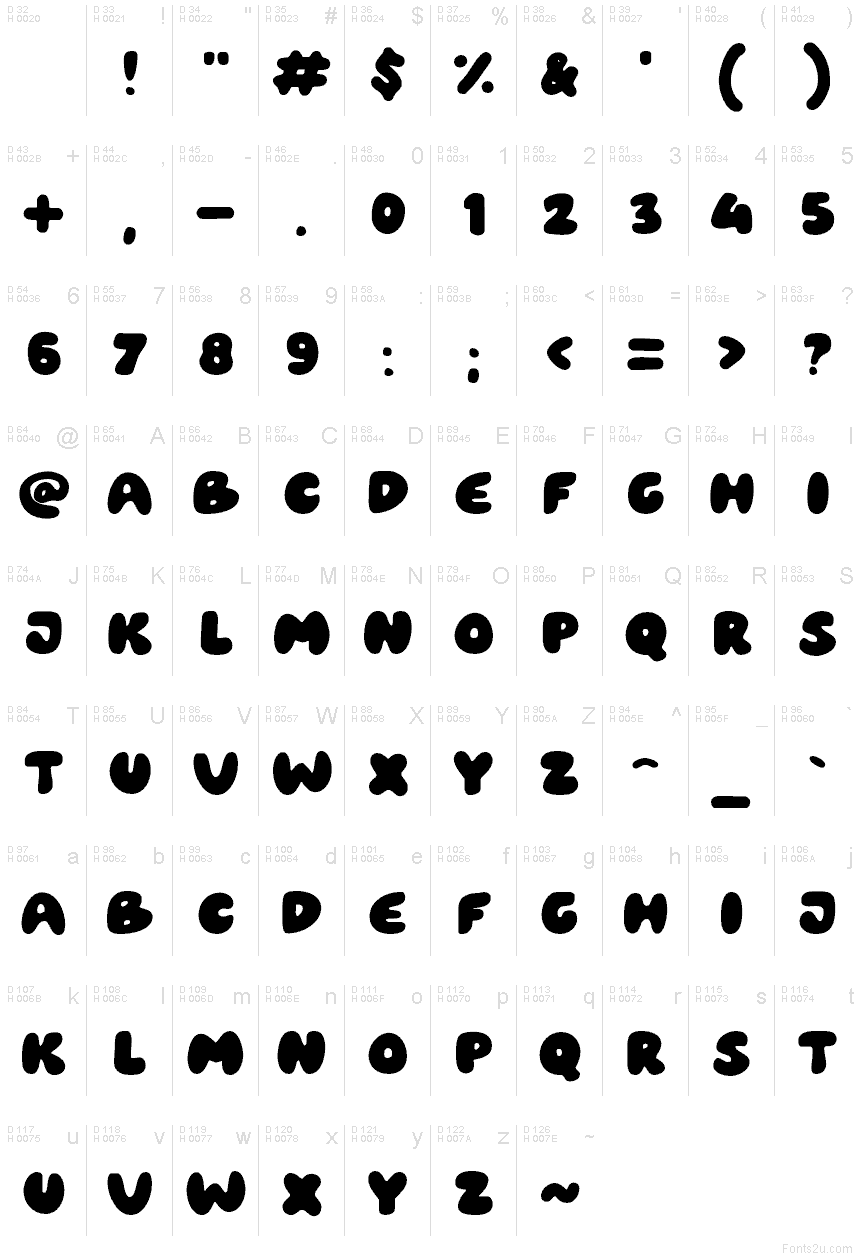
Unlucky Man
Unlucky Man font by Origin Type is a versatile display font with bold characters and an expanded width. It exhibits a cartoony style that brings retro aesthetic through its round forms and quirky appeal. Other standout features of this fun typeface include smooth texture, modern look, and overall bold impression.